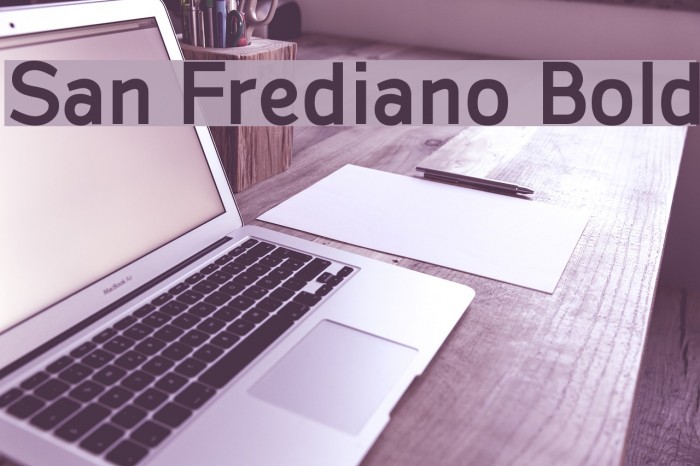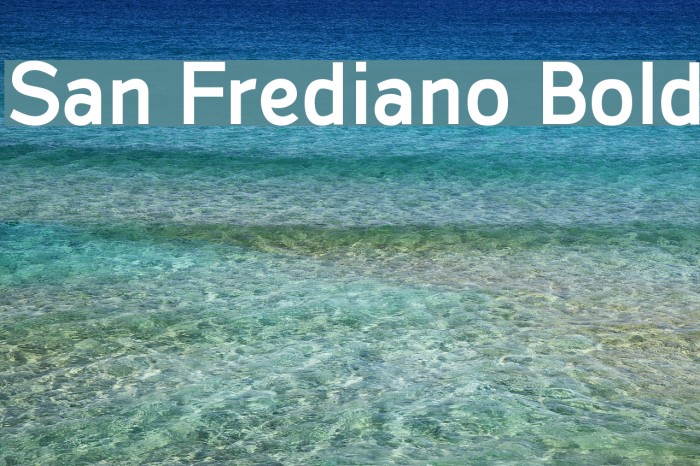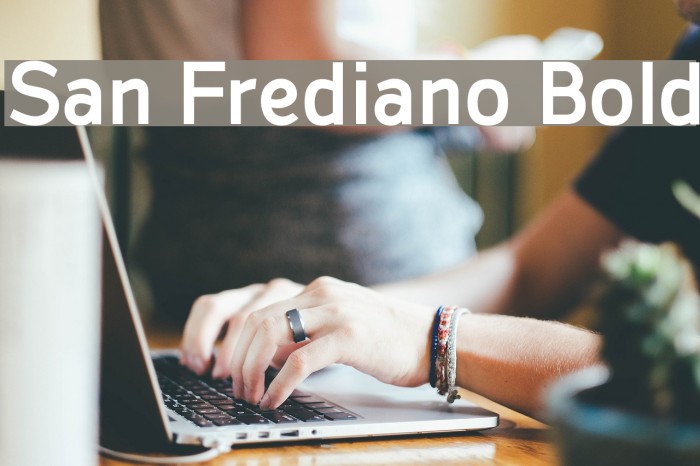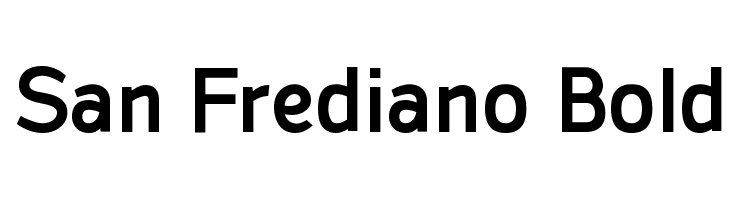
San Frediano Bold Font
This font features a clean and modern sans-serif design with bold, uniform strokes that convey strength and clarity. The characters are well-proportioned, with a slightly condensed appearance that enhances readability without sacrificing style. The uppercase letters are tall and commanding, while the lowercase letters maintain a consistent height, providing a harmonious balance. The numerals are clear and distinct, making them suitable for various applications. Special characters are included, offering versatility for different design needs. Overall, this font exudes a contemporary and professional aesthetic, making it ideal for a wide range of projects.
A bold, modern sans-serif font with clean lines and a slightly condensed style.
- Proposed Projects: Ideal for branding, advertising, headlines, and digital media where a strong, modern presence is desired.
- Use Case: Headlines, Logos, Advertising